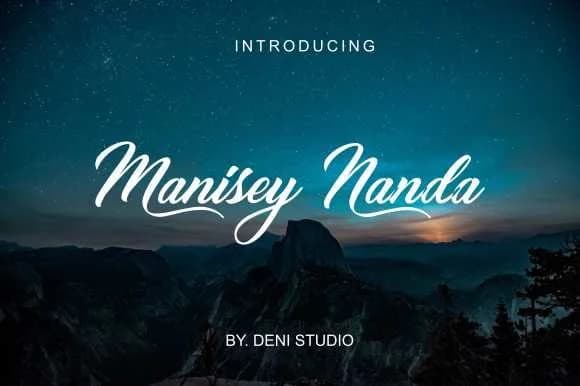
About Nanda Font
Nanda by deniprianggono78 is a flowing script font that captures the charm of hand-lettered designs with contemporary polish. The typeface carries an authenticity that reads naturally in both traditional and modern contexts, making it remarkably versatile for brands and personal projects seeking a human touch. This script works beautifully across wedding invitation suites, where its elegant strokes bring personality to ceremony stationery without feeling overdone. Graphic designers also appreciate it for boutique product labeling, think artisanal candle branding, small-batch skincare packaging, or handmade jewelry presentation, where authenticity builds consumer trust. The font translates well to event materials like menu cards and place settings, and its readability holds up surprisingly well in medium-sized applications like social media graphics and personal branding projects. Brand owners who need that "carefully handwritten" quality without commissioning custom lettering find Nanda strikes the right balance between distinctiveness and professional finish. Whether you're developing a cohesive brand identity for a creative small business or designing one-off materials that demand personality, Nanda delivers the handcrafted aesthetic without sacrificing legibility. Get Nanda on Creative Fabrica and add this versatile script to your design toolkit.
Nanda Font is a script font that shines as a display or heading face. Pair it with a clean sans-serif or serif font for body text β the contrast creates a clear hierarchy while the two styles stay balanced and easy to read.